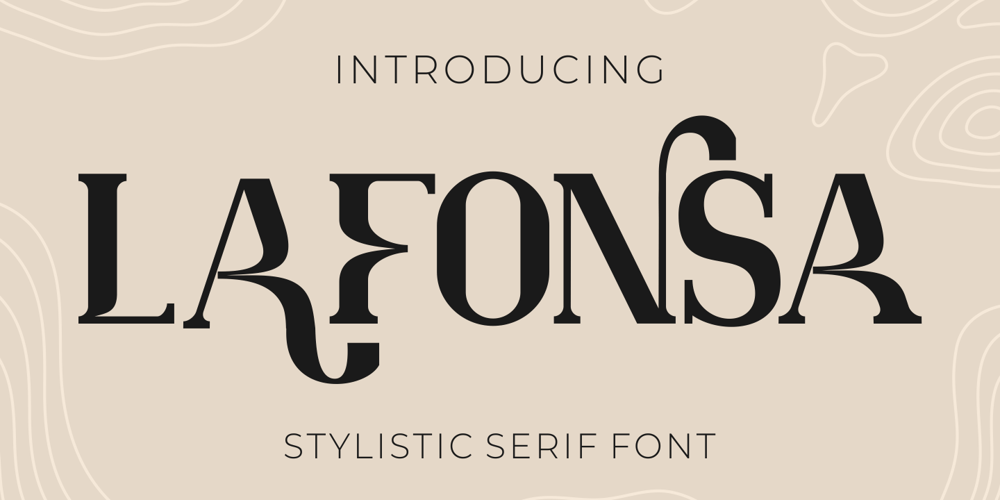
Lafonsa Font Family was designed by Putra Novembria Candra Kusuma and published by Putracetol. Lafonsa contains 1 styles and family package options. Introducing “Lafonsa,” a new serif font that combines stylistic typography with unique alphabet lettering and serif typography style. With a wide range of options, you can create stunning letter combinations for lettering.Lafonsa comes with open type features that offer a vast selection of alternates and end swashes to enhance your lettering. It is ideal for various purposes, including Logotype, heading, cover, poster, logos, quotes, product packaging, header, merchandise, social media & greeting cards, and many more. Additionally, Lafonsa supports multi-language use.To access Lafonsa’s alternate glyphs, you will need a program that supports OpenType features such as Adobe Illustrator CS, Adobe Photoshop CC, Adobe InDesign, and Corel Draw.In the zip package, you will receive Lafonsa in otf, ttf, and woff formats, with features that include uppercase and lowercase letters, opentype alternates and ligatures, numbers, punctuation, symbols, and multilanguage support.Overall, Lafonsa is an excellent choice for anyone who wants to create stunning and unique designs, and it is perfect for all your design needs. Its versatility and high-quality design make it a valuable addition to any designer’s toolkit.